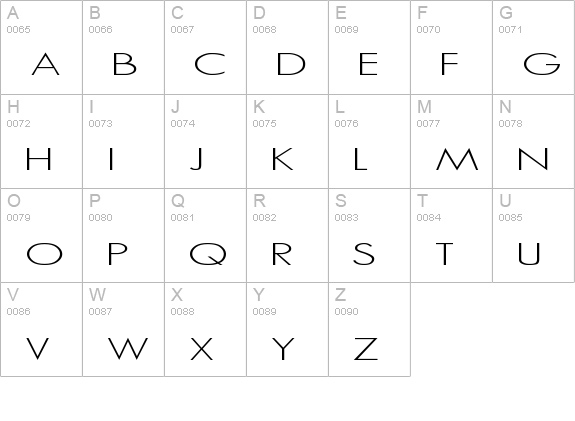
Introducing SeasSerif, an exquisite font that combines elegance and versatility. With its timeless appeal and graceful curves, this font captures the essence of sophistication. Whether used for headlines, body text, or branding projects, SeasSerif effortlessly adds a touch of class to any design. But what truly sets SeasSerif apart is its availability as a free download. That's right, this stunning font is freely accessible to all at FontsMarket.com. Now, you can enhance your creative projects without breaking the bank or compromising on quality. SeasSerif's sleek and legible characters make it an excellent choice for both print and digital media. From magazines to websites, logos to invitations, this font shines in various applications. Its versatility allows you to experiment with different styles, from classic and traditional to modern and contemporary. The attention to detail in SeasSerif is truly remarkable. Each letter is meticulously crafted, resulting in a seamless flow that adds a touch of elegance to your typography. The generous spacing and balanced proportions ensure readability, even at smaller sizes. With SeasSerif, you have the freedom to express your creativity and bring your vision to life. Its extensive character set includes uppercase and lowercase letters, numbers, punctuation marks, and special symbols, providing you with endless possibilities to create stunning designs. Downloading SeasSerif is a breeze, thanks to FontsMarket.com. Simply visit the website, find the font, and click the download button. Within moments, you'll have this exceptional typeface at your fingertips, ready to elevate your design projects. So, why wait? Discover the beauty and versatility of SeasSerif today. Download it for free at FontsMarket.com and unlock a world of endless design possibilities.